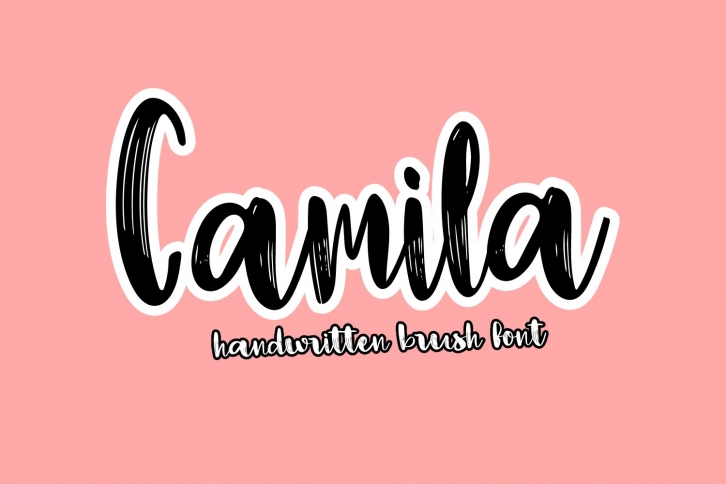
Camila is a trendy and unique font with an authentic style. It was designed by Lettering Studio and it's a great choice for creative people who need such a font. It was released on May 3, 2021 and the file size is 4.8 MB. Camila will add an organic vibe to any design idea!